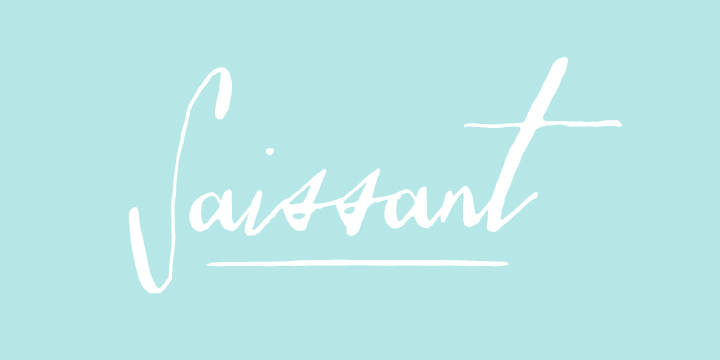
Saissant Font is perfect for branding projects, logo design, magazine layouts, wedding invitations, fashion magazines, luxury product packaging, cosmetic branding, restaurant menus, book covers, poster designs, social media graphics, and premium advertising campaigns.
Saissant Font is exciting because it combines elegance with modern sophistication, featuring unique letterforms that capture attention while maintaining excellent readability. Its distinctive character set includes stylistic alternates and ligatures that add personality to any design project, making it stand out in today's competitive visual landscape.
Saissant Font family includes regular, bold, italic, and light weights, along with extended character sets supporting multiple languages. The font family also features OpenType features such as stylistic sets, contextual alternates, and swash characters that enhance its versatility.
This premium typeface represents the perfect balance between contemporary design trends and timeless appeal. Saissant Font Free Download offers designers and creatives an opportunity to explore its potential before committing to a commercial license. The font's carefully crafted curves and proportions make it ideal for high-end branding projects where sophistication matters.
Whether you're working on editorial design, luxury branding, or creative advertising, Saissant Font delivers exceptional performance across both print and digital media. Its clean lines and elegant structure ensure maximum impact in headlines, while its readability makes it suitable for longer text blocks when needed.
The font's versatility extends to various design applications, from corporate identity systems to artistic projects. Its modern aesthetic appeals to contemporary audiences while maintaining professional credibility. The careful attention to detail in each character creates a cohesive visual experience that enhances brand recognition and memorability.
For designers seeking a font that combines functionality with aesthetic appeal, Saissant Font represents an excellent choice. Its comprehensive character set and multiple weights provide the flexibility needed for complex design projects, while its distinctive personality ensures your work stands out from the competition.